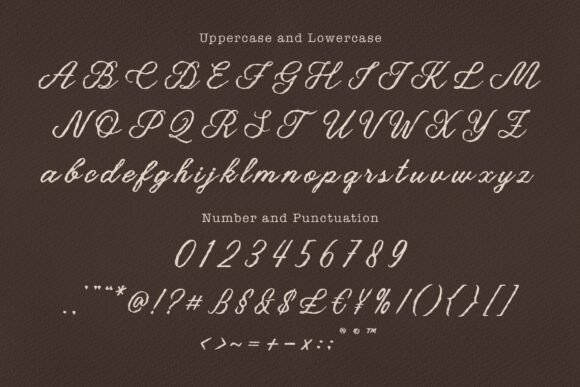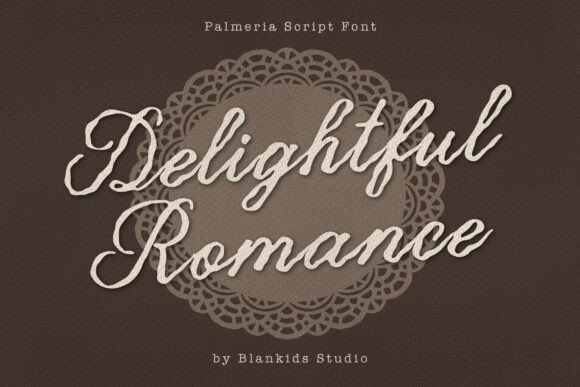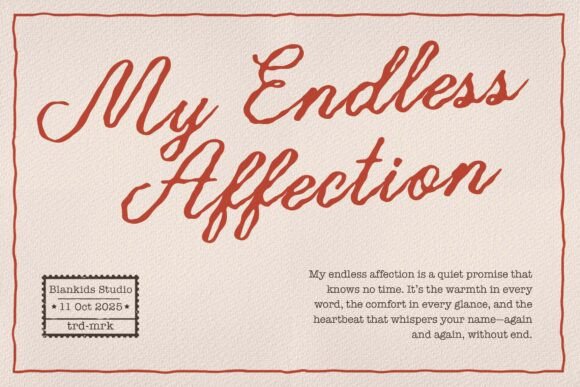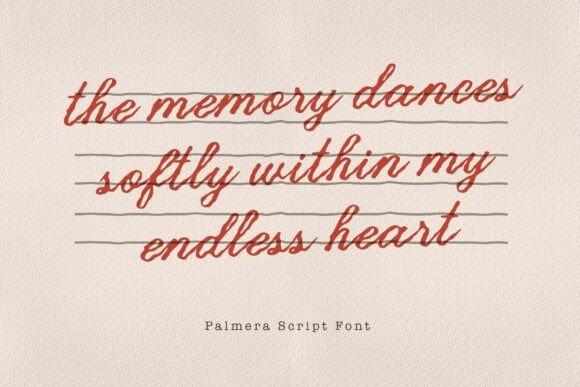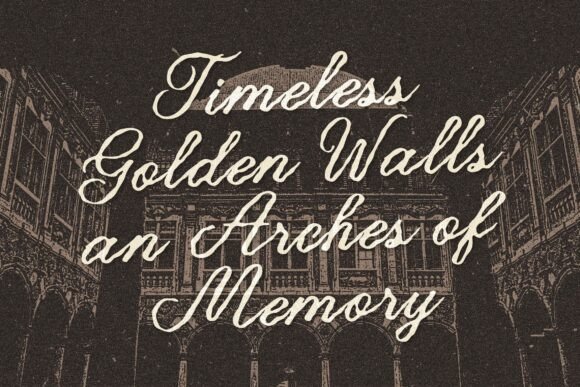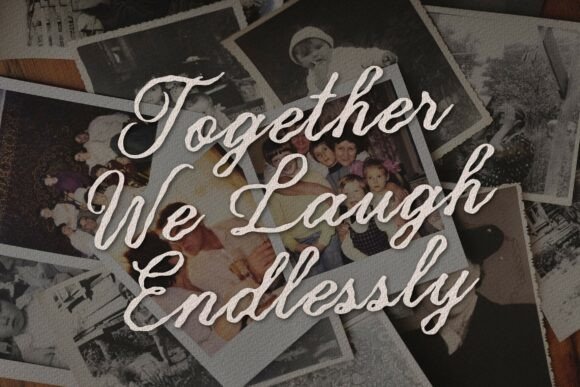
Introduction to Palmeria Font
Bring a touch of nostalgic charm to your designs with Palmeria Script, a textured handwriting font that captures the warmth of vintage penmanship and timeless elegance.
Each stroke is carefully crafted to look natural, giving your text an authentic, handmade feel Perfect for branding, packaging, invitations, logos, posters, and vintage-themed projects, Palmeria Script blends classic sophistication with organic texture, making every word feel alive and personal.